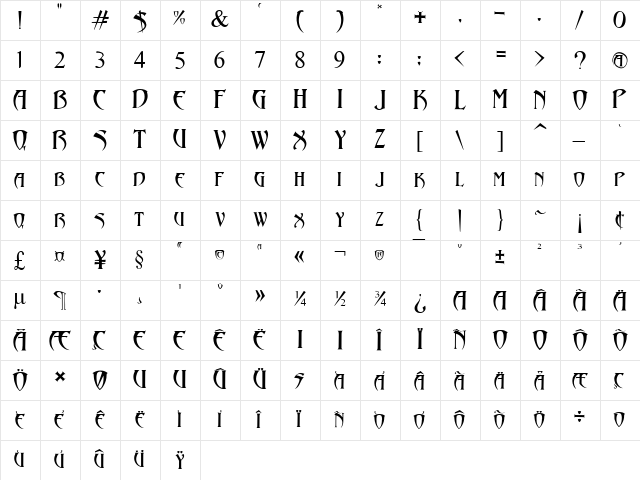
Design Context for Necroshine Typeface
Necroshine is a composed and adaptable typeface that performs quietly and consistently across a wide range of design contexts.
Pro Tip: Use Necroshine in both headline and body roles to test its range before committing to a single application.